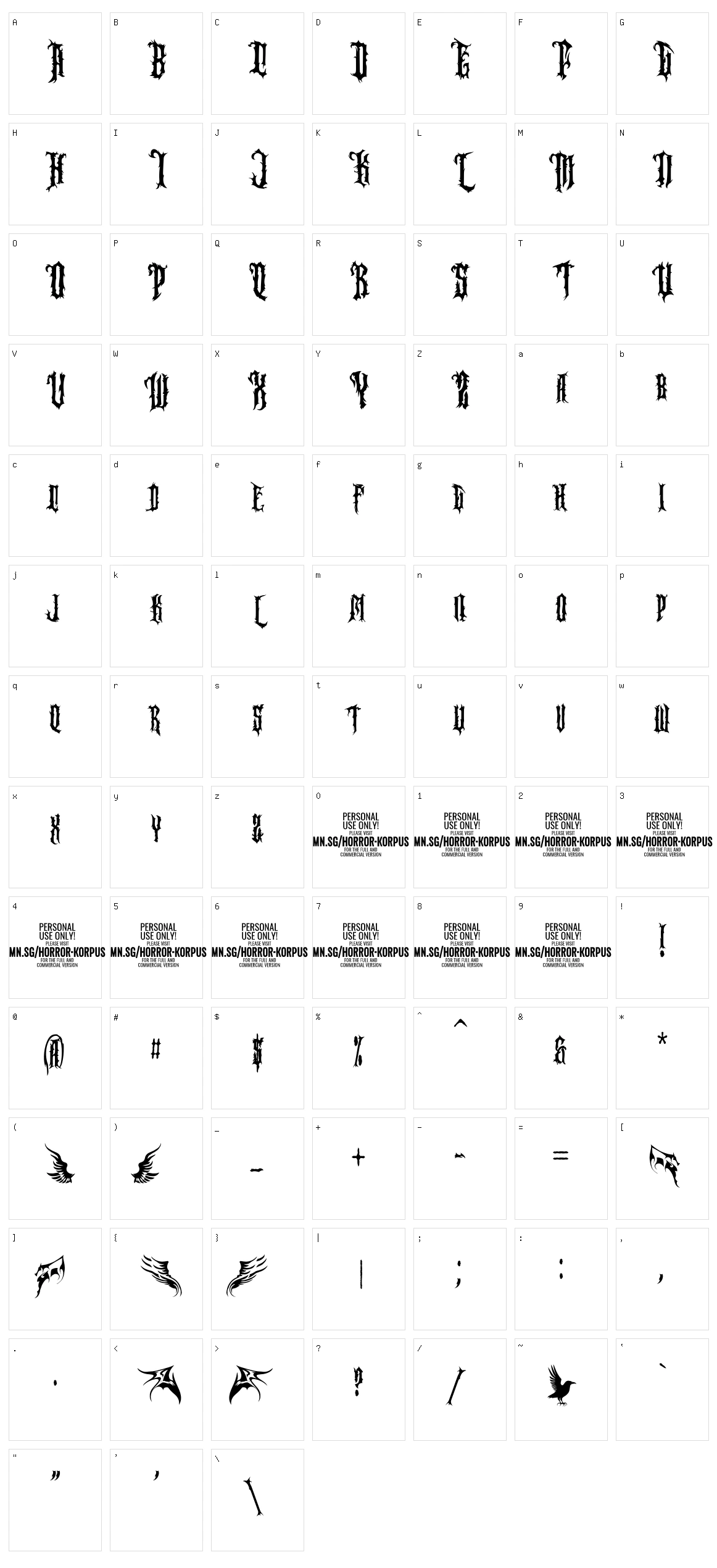
Horror Korpus is an artistic rebellion, a statement against the clean and the pristine, evoking the gritty scenes of a horror movie into your design.
With flames burning in its strokes and a wild, untamed demeanor, this rough font wears a garment of distress, with eroded and destroyed textures that screams an extreme temperament. It stands defiant, bearing a resemblance to edgy tattoo designs that adorn the bravest of souls.
Its characteristics make it an indisputable choice for heavy metal logos and intense film posters, adding a fiery and dark dimension to your designs.
Write % after any word to make it into a symmetric logo.
Example: Monogram%
Use ( ) { } [ ] < > around any word to give it wings.
Example: <dragon>
Use ¶ ¦ ⡠¤ à ÷ â ± ~ to make demonic symbols like devils and skulls.
Example: scaryÃmovie
The font is built with advanced OpenType functionality and has a guaranteed top-notch quality, containing stylistic and contextual alternates, ligatures, and more features; all to give you full control and customizability. It has extensive lingual support, covering all Latin-based languages, from Northern Europe to South Africa, from America to South-East Asia. It contains all characters and symbols you'll ever need, including all punctuation and numbers.
Designed by Mans Greback, a versatile typeface craftsman, Horror Korpus is another feather in his cap, showcasing his ability to play with extremes and yet maintain a level of artistic coherence and appeal. Greback continues to push boundaries, offering fonts that are not only visually compelling but also narrate a story through their intricate design and personality.